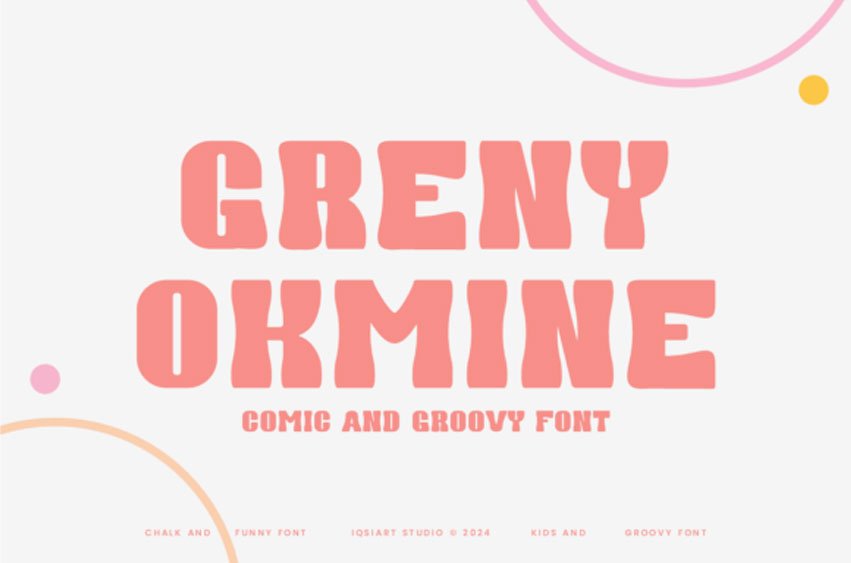
Greny Okmine Font is a playful and fun font that combines comic-style letters with a groovy vibe. Its bouncy curves and lively shapes make it perfect for adding a cheerful touch to any design.
Whether you’re creating posters, invitations, or social media posts, Greny Okmine brings a sense of joy and creativity.